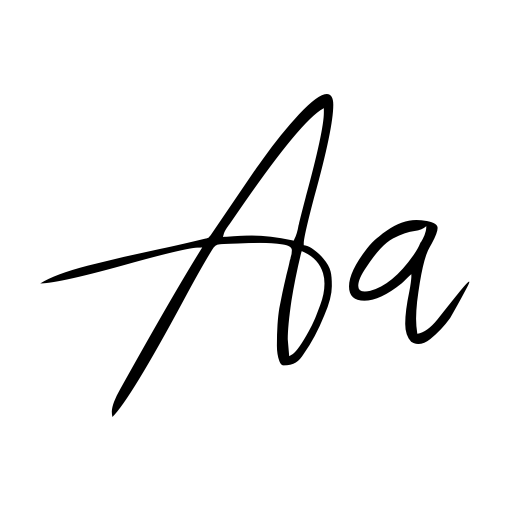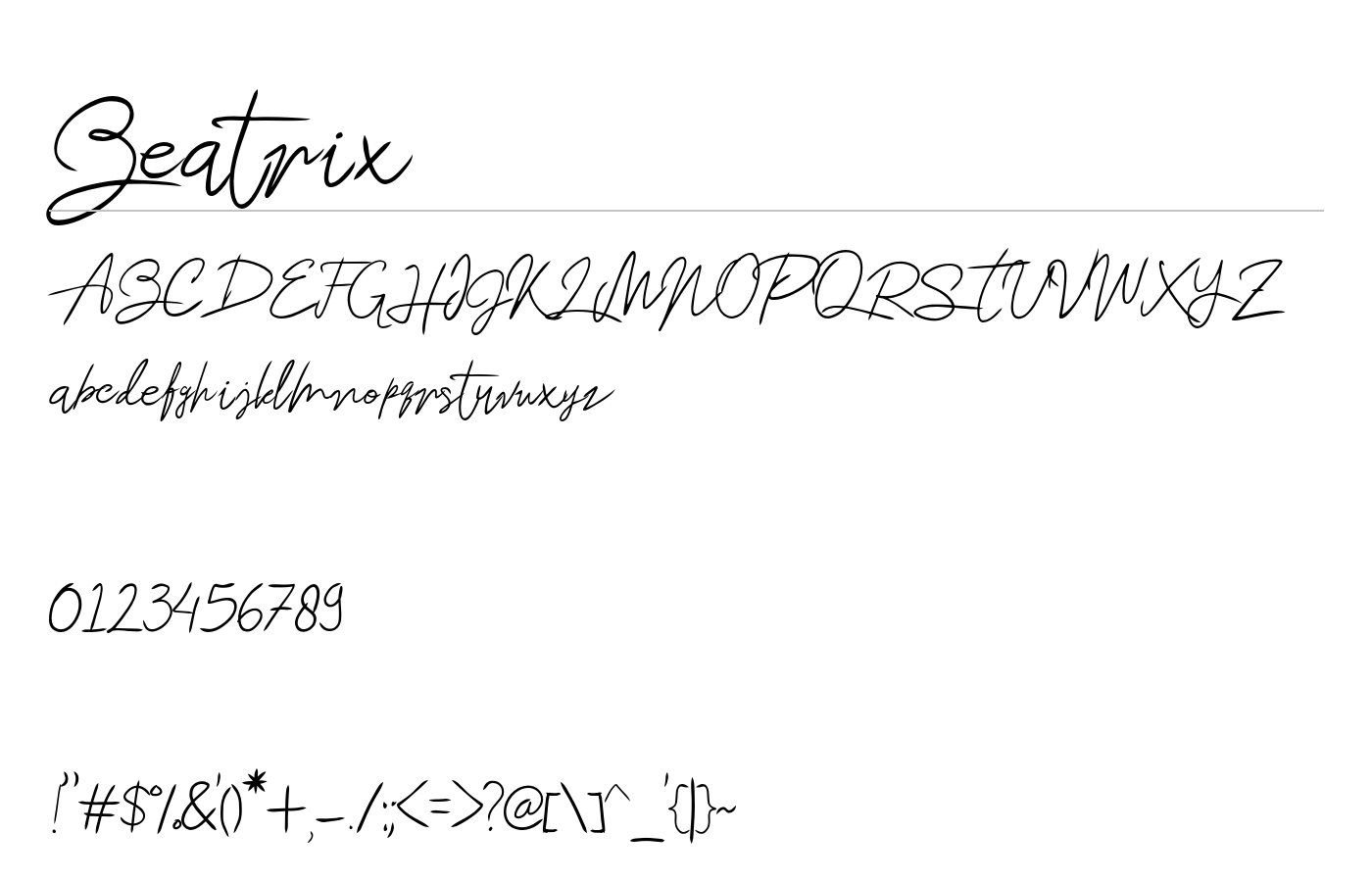
Beatrix is an elegant, handwritten script font featuring delicate, flowing strokes that create a stylish and personal feel. Its fine, slightly slanted lines with varying thickness give it a graceful, artistic character ideal for creative projects, invitations, and branding that aim for a sophisticated yet approachable look. This font works beautifully for logos, packaging, and editorial uses where a touch of refinement and individuality is desired.
Beatrix Font
About Beatrix Font